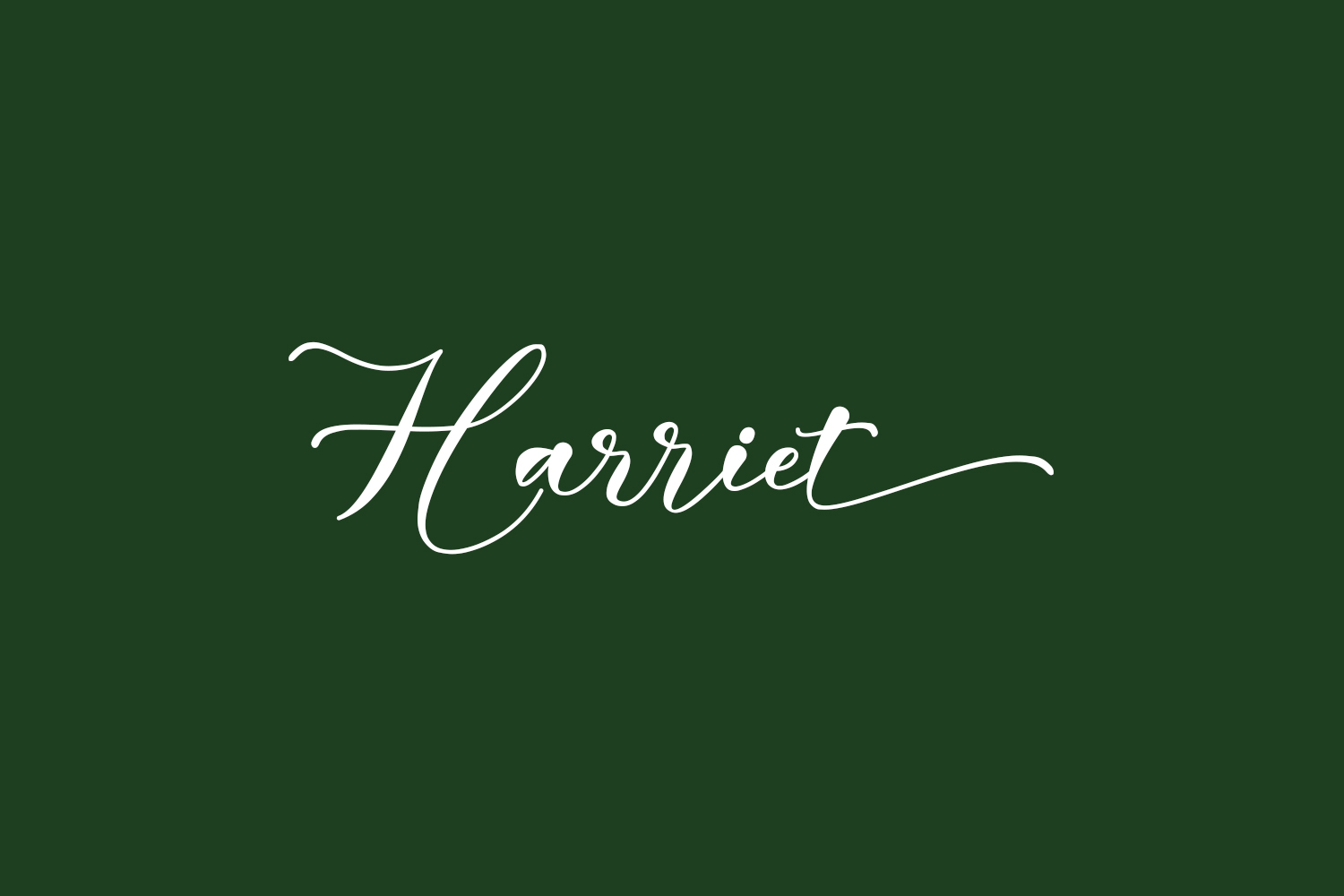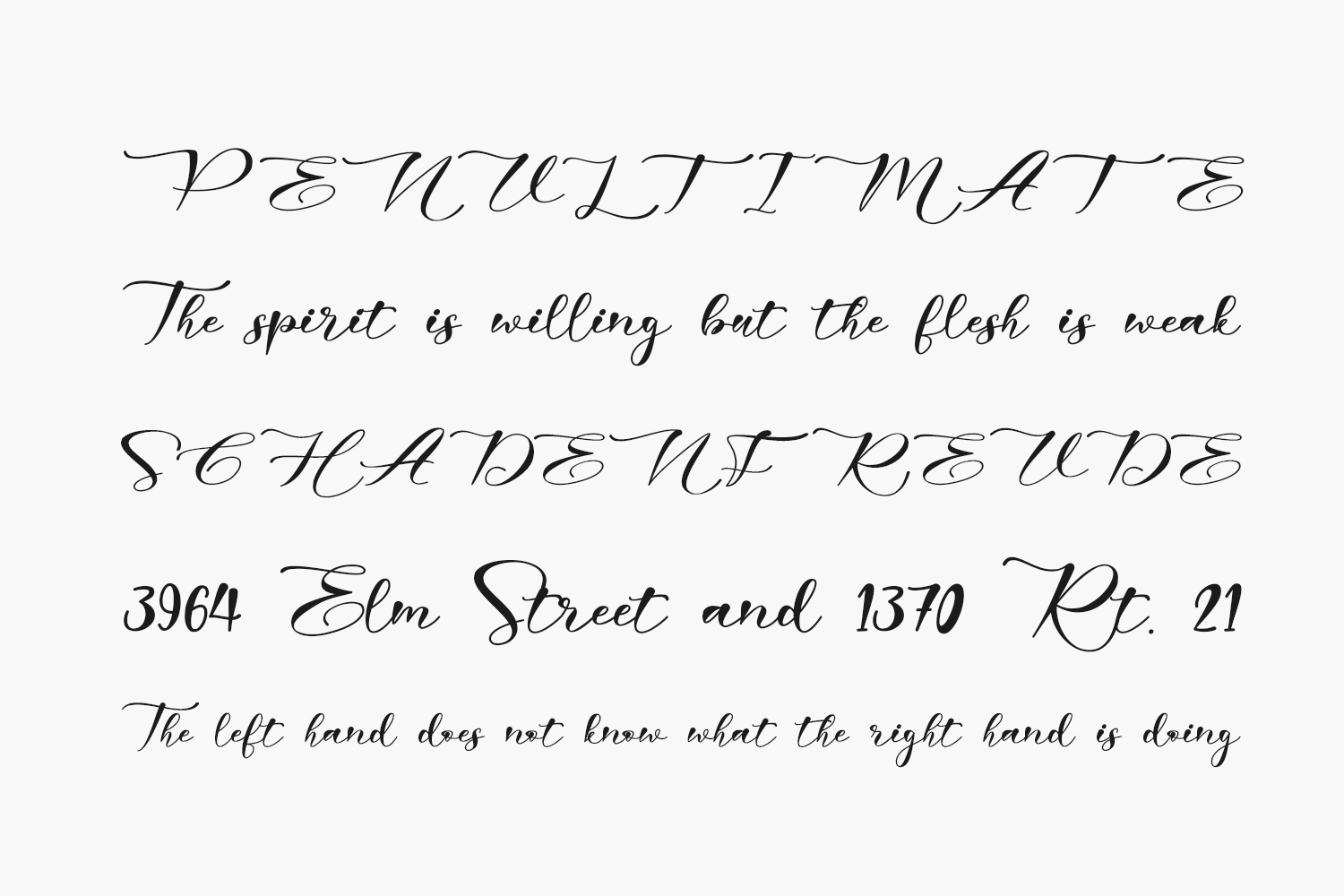
Harriet Free Font is a refined and delicate handwritten font. This lovely script font has a wide spectrum of applications ranging from greeting cards to headlines and is guaranteed to add a romantic feel to your next project. Harriet Free Font was designed by Letterara and is free for personal use only. Please purchase the full version for commercial use.
Designed by Letterara